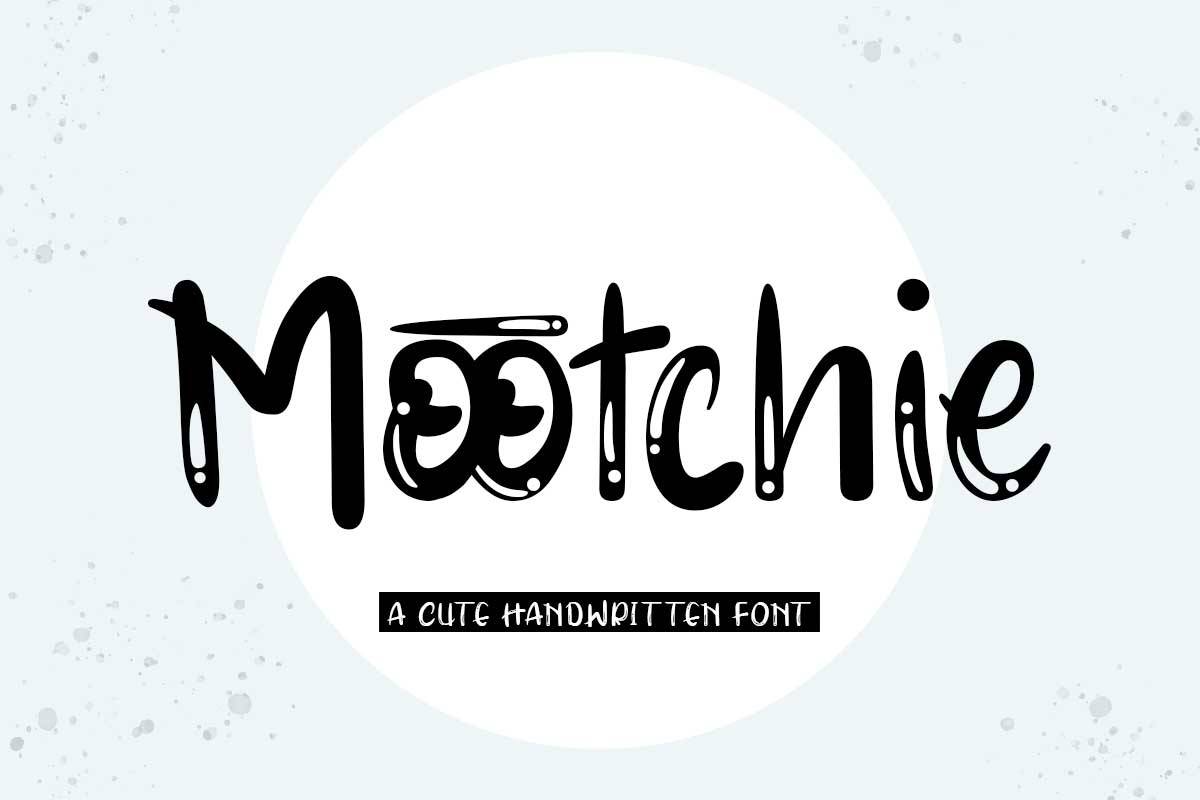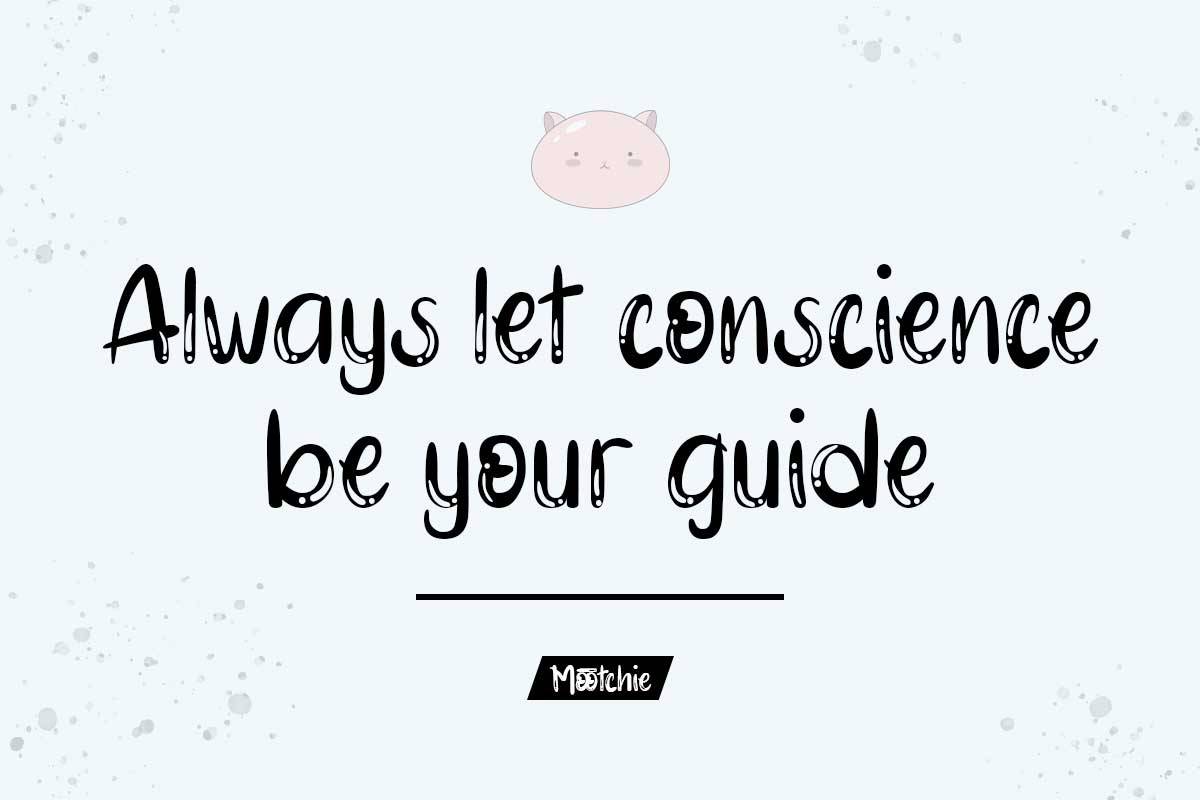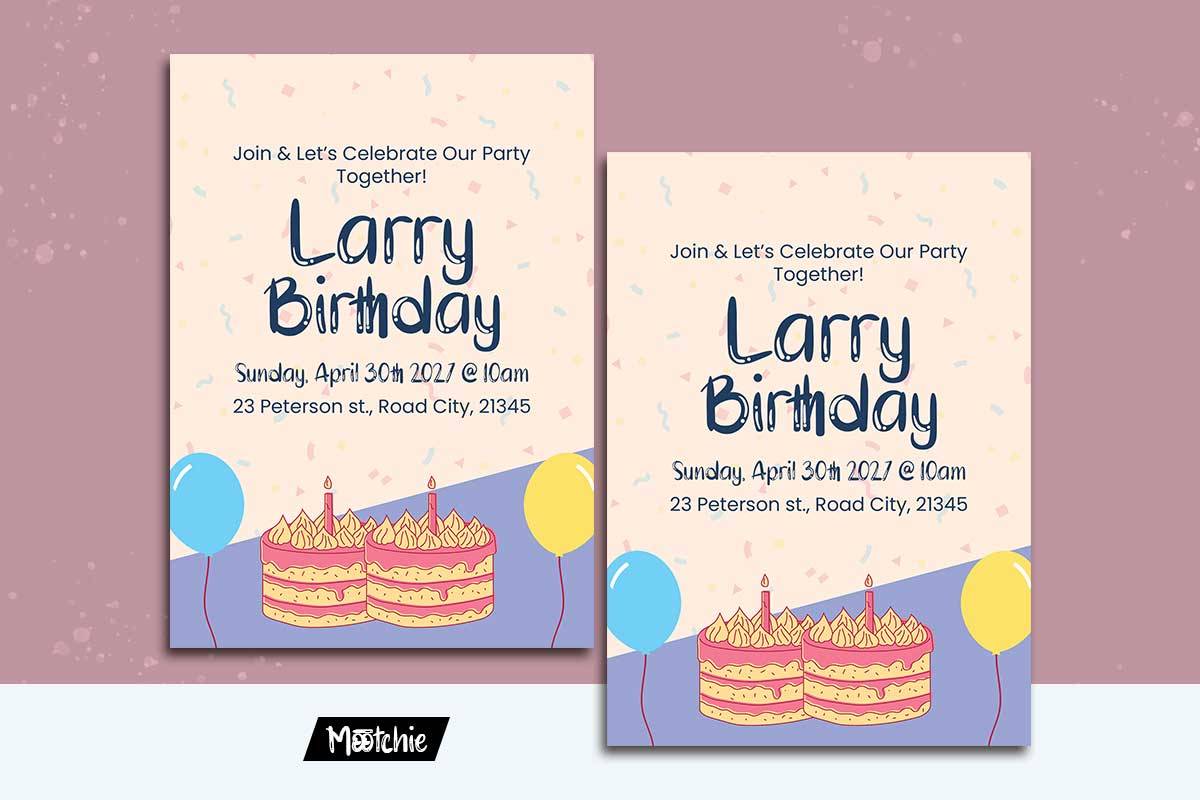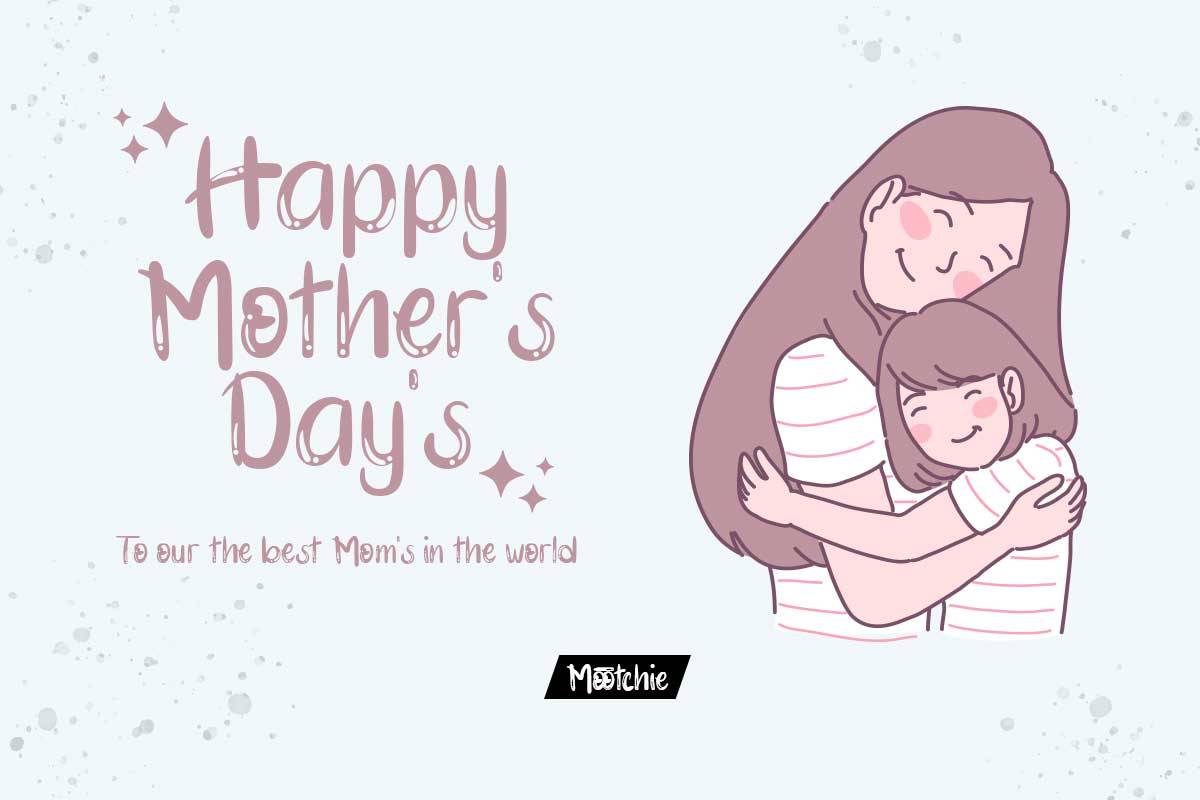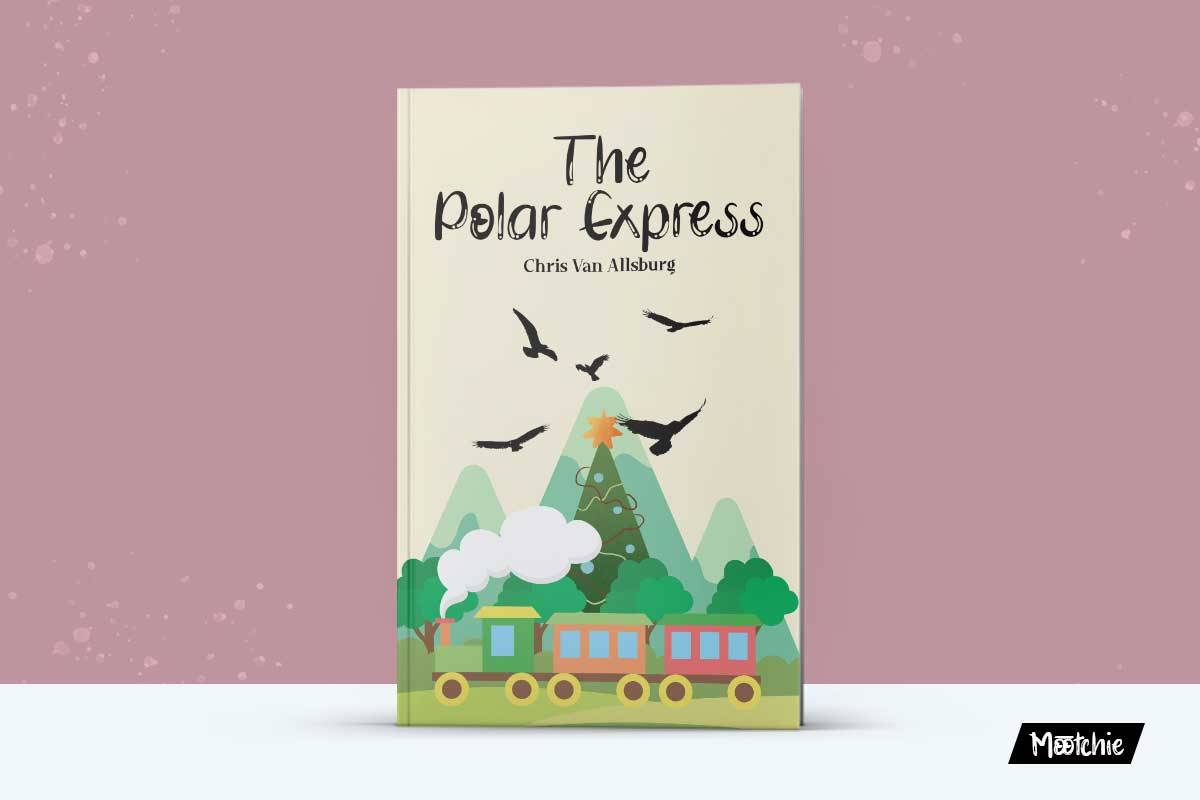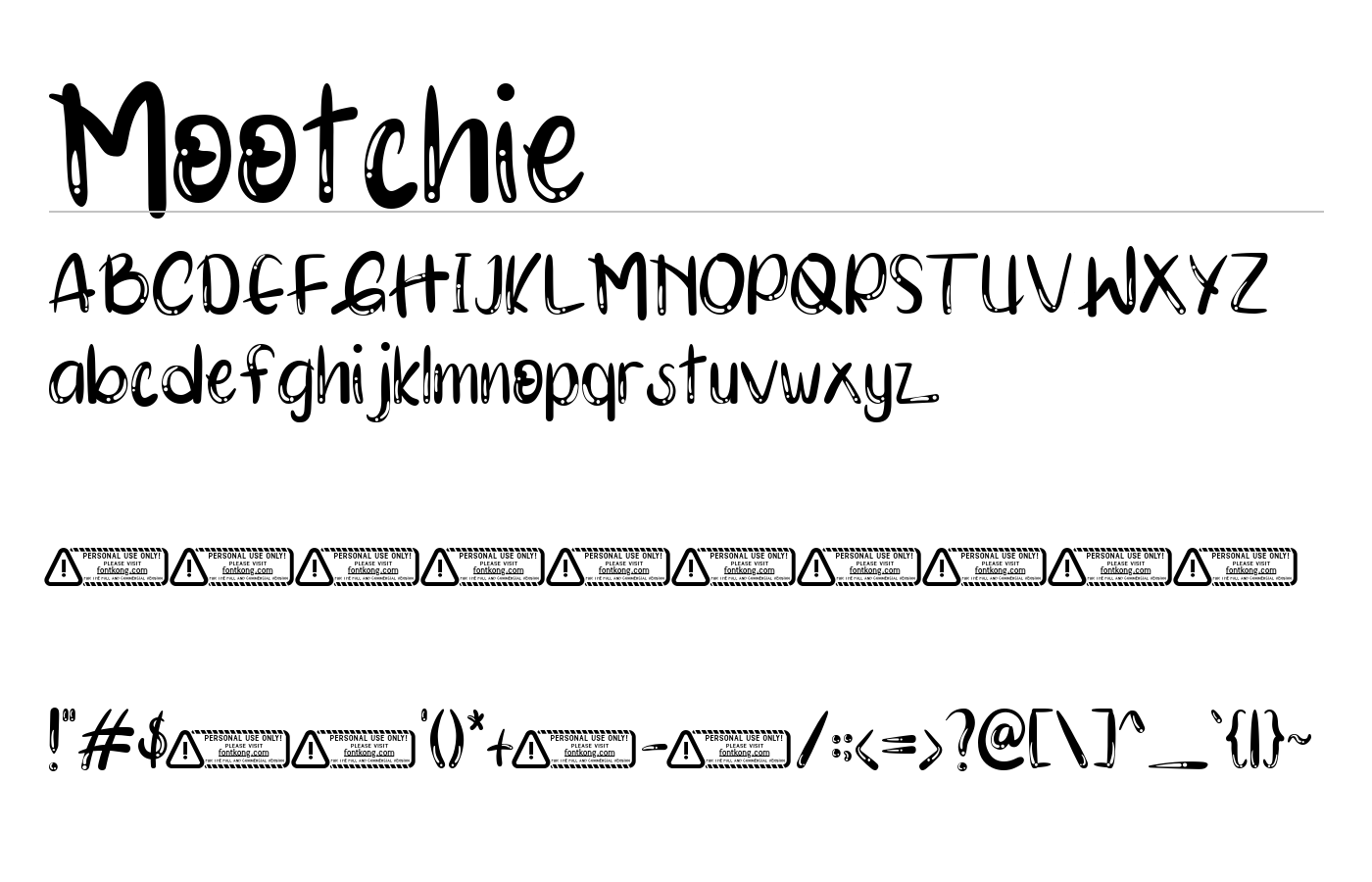
Mootchie is a playful and quirky handwritten sans serif font with a lively, casual feel. Its irregular shapes and decorative dots add a fun, whimsical touch, making it ideal for creative projects, children’s books, and informal branding. This font works best for headlines and display uses where a friendly, approachable personality is desired.
Mootchie Font
About Mootchie Font
| Font family | Mootchie Font |